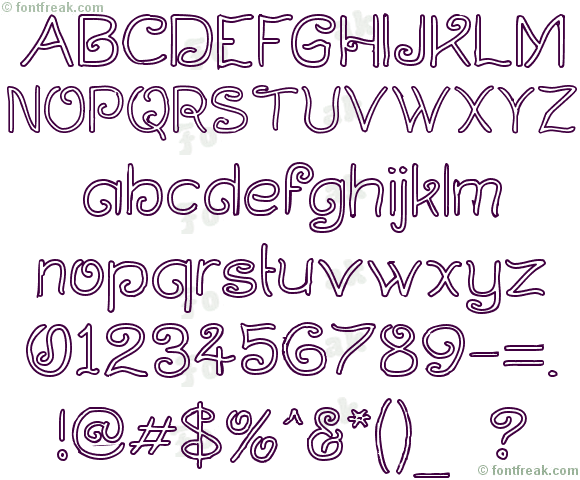
Curlmudgeon Wideside
Curlmudgeon Hollow Italic
Curlmudgeon Italic
Curlmudgeon Hollow
Curlmudgeon
About Curlmudgeon
Curlmudgeon, designed by Gemfonts, is a whimsical and decorative typeface that captures the essence of playfulness while maintaining a sophisticated touch. This font falls into the category of handwritten or script styles, characterized by its unique curls and swirls that add an artistic flair to any text. The stroke weight varies throughout, giving it a lively appearance, while the hollow design offers an airy feel. The italicized nature of Curlmudgeon further emphasizes its dynamic character, making it visually engaging.
The charm of Curlmudgeon lies in its versatility, making it suitable for various creative applications. Its distinct style shines in wedding invitations, where the elegant curls can enhance the romantic theme. Additionally, it works beautifully for children's book covers, adding a playful touch that appeals to young readers. Graphic designers may find it perfect for crafting eye-catching posters or social media graphics, where its unique flair can draw attention. Restaurant menus can also benefit from this font, providing a friendly and inviting atmosphere that complements a casual dining experience.
The target audience for the Curlmudgeon font includes graphic designers, small business owners, and content creators who seek to inject personality into their projects. Whether you're designing promotional materials or personal stationery, this font offers a delightful option that stands out.
In a crowded marketplace of fonts, Curlmudgeon distinguishes itself with its charming, playful aesthetic. Its free availability makes it an accessible choice for anyone looking to elevate their designs without compromising on quality. With a Curlmudgeon font free download, you can easily incorporate this unique typeface into your next creative endeavor, ensuring your work is both memorable and visually appealing.